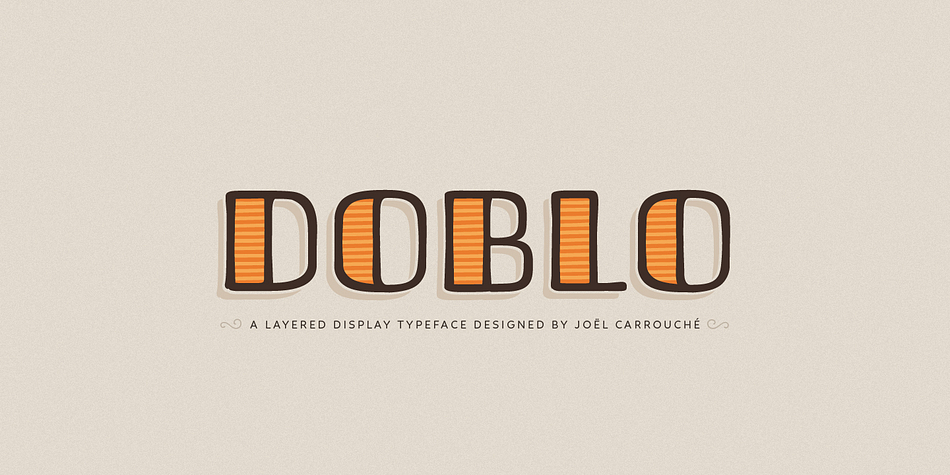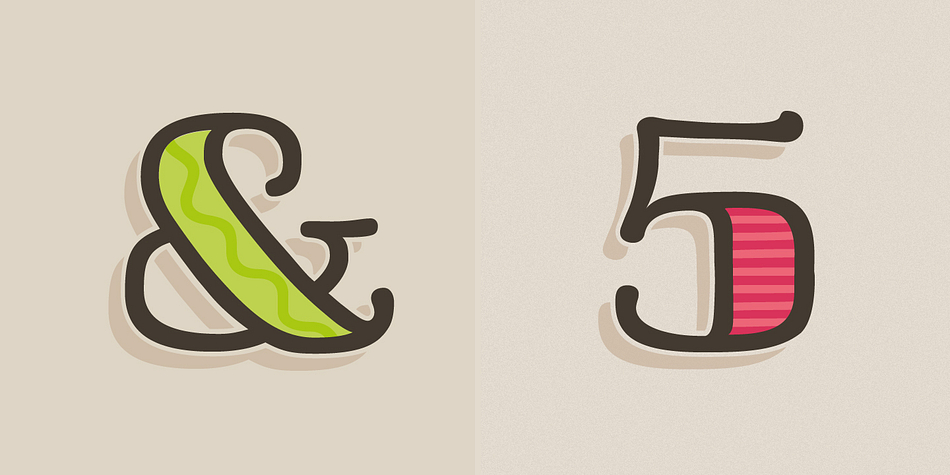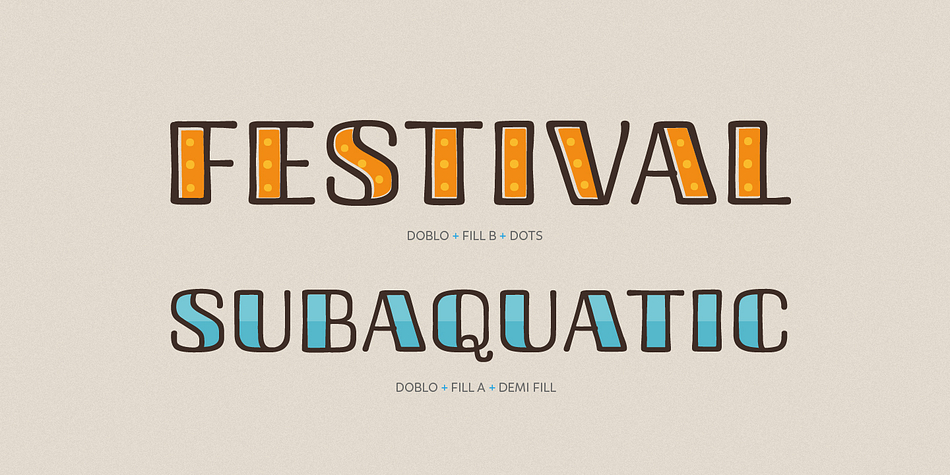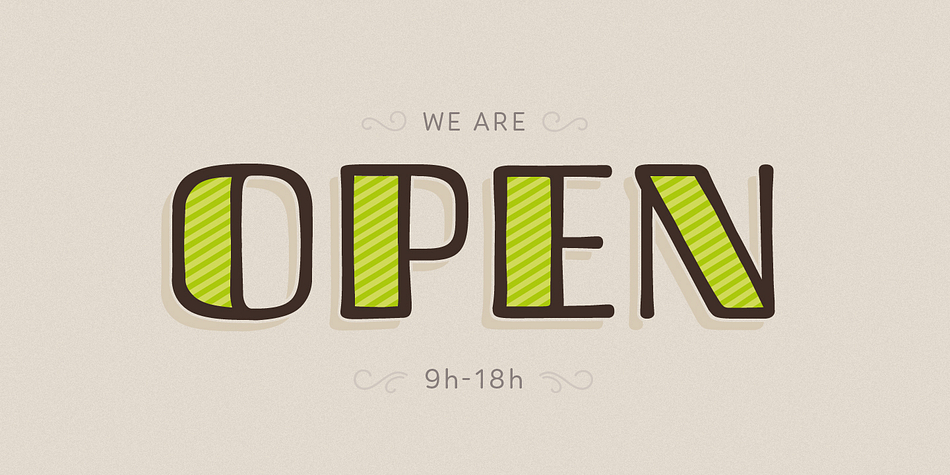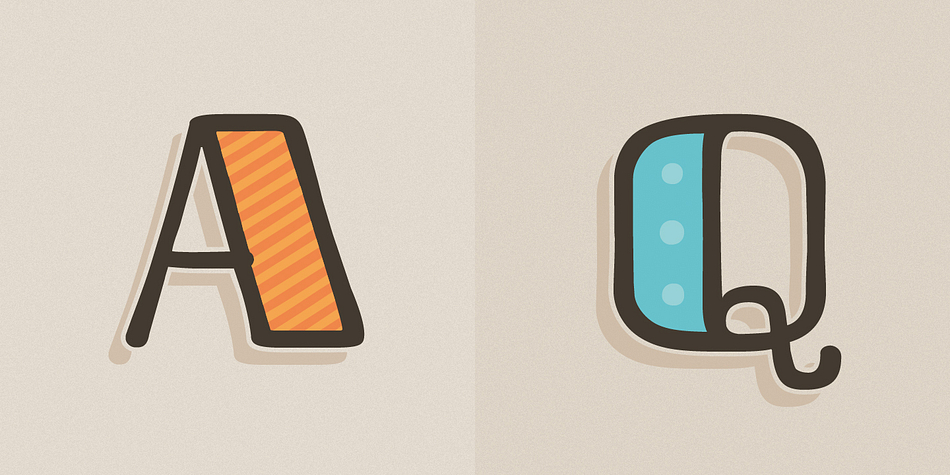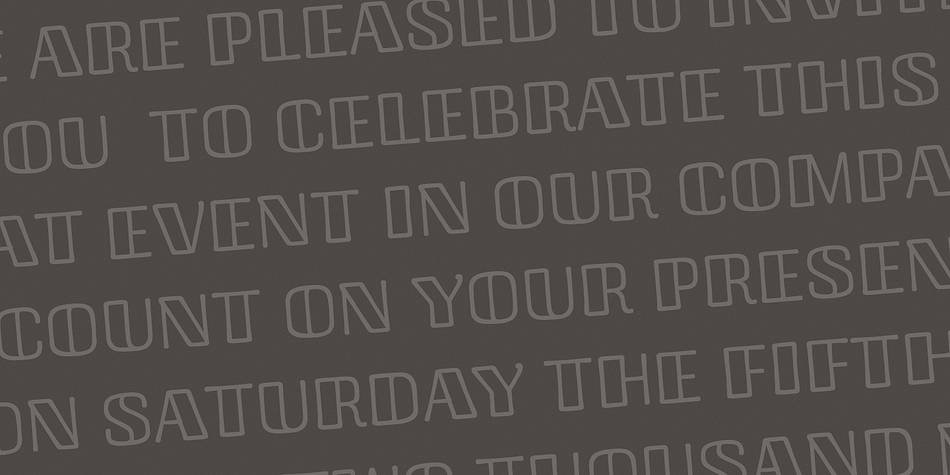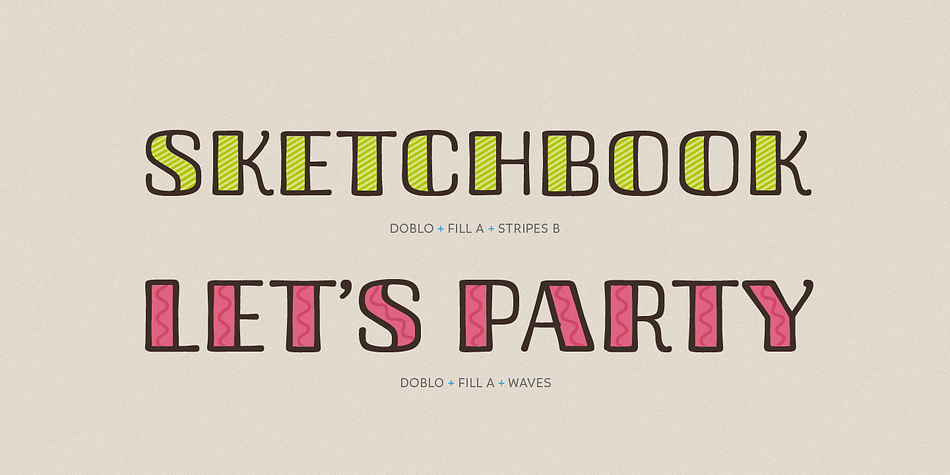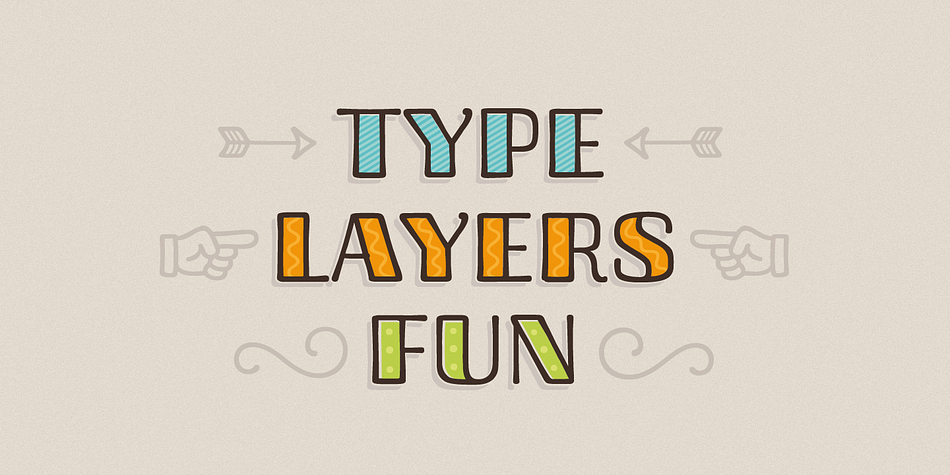
Designed by Joël Carrouché, Doblo is a dingbat, display and art deco font family. This typeface has ten styles and was published by JCfonts.
Doblo is a colorful and slightly retro layered type family designed by Joël Carrouché. Consisting of one master character, 8 different layers and a collection of extra ornaments, this fancy family allows several creative combinations and produces unique results.